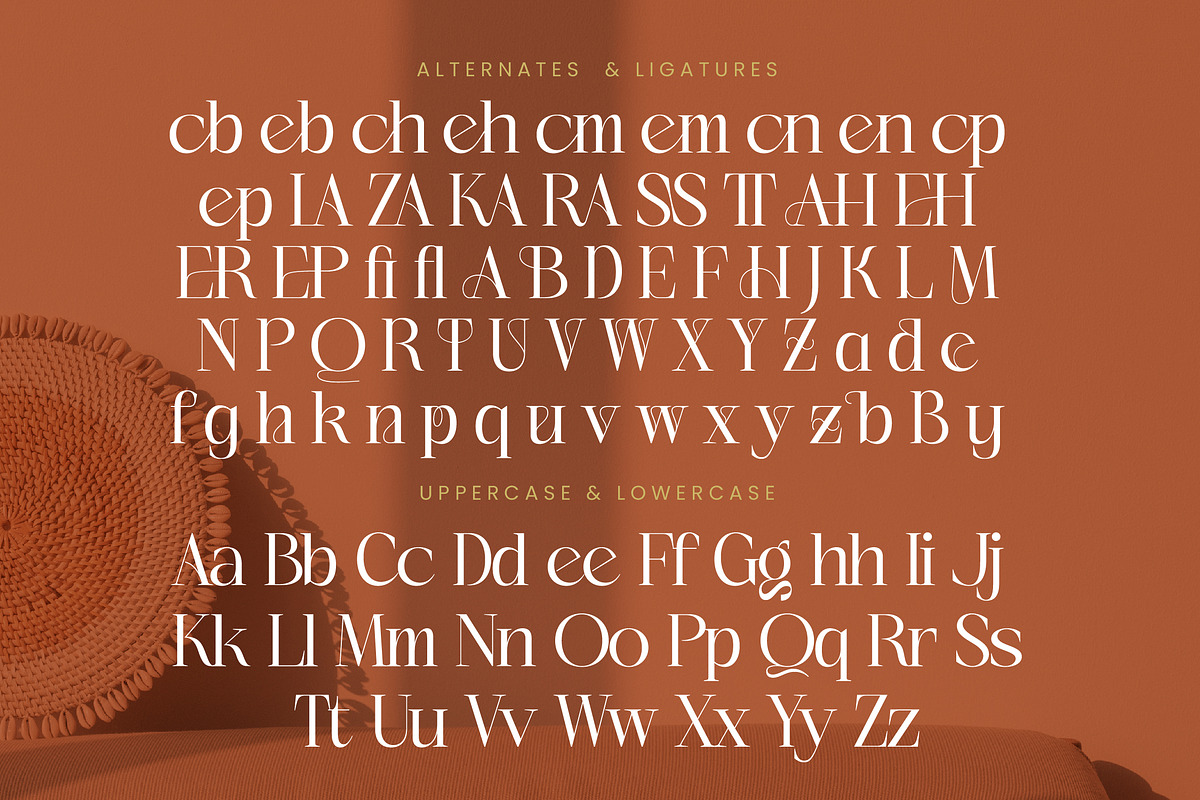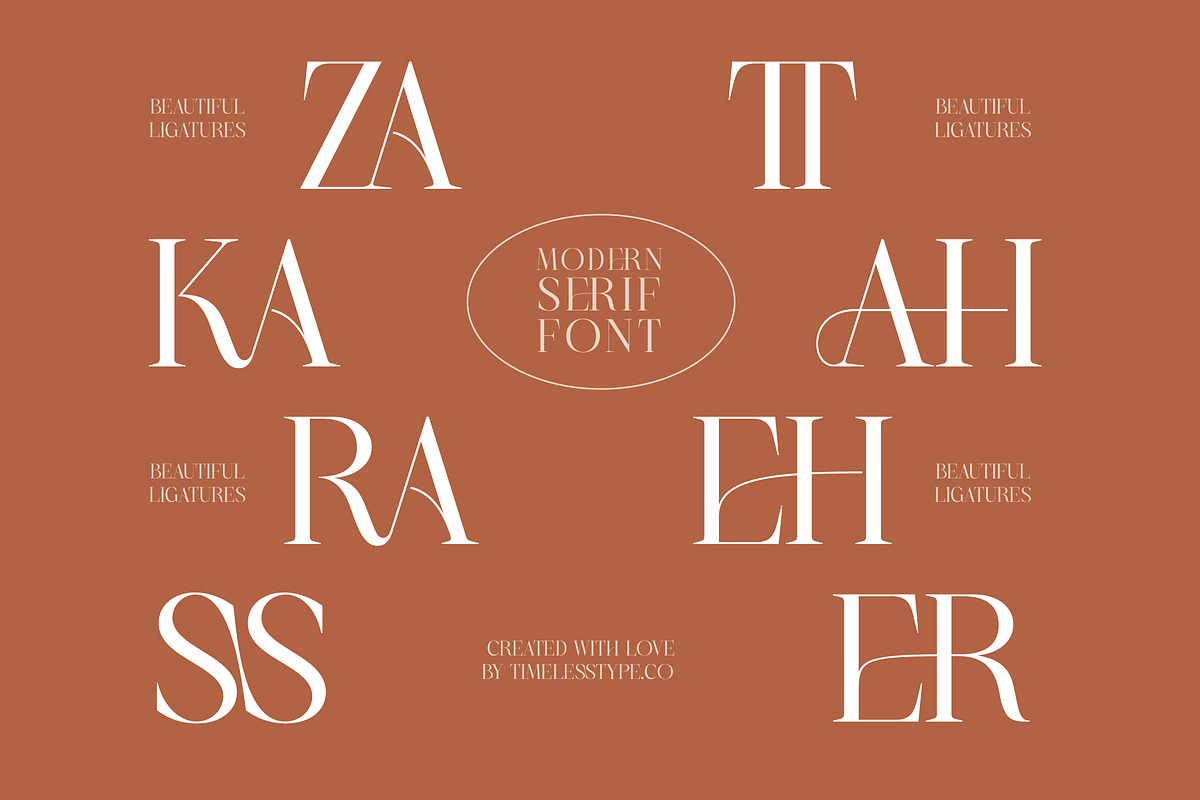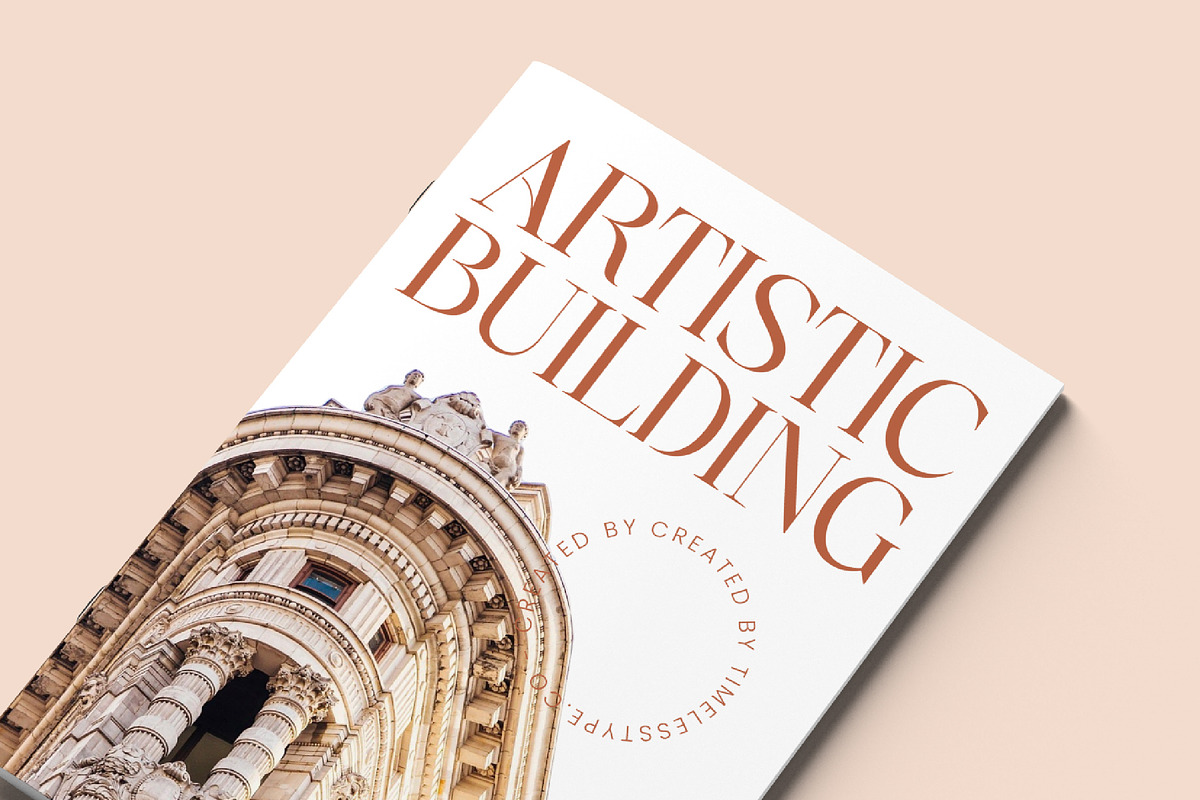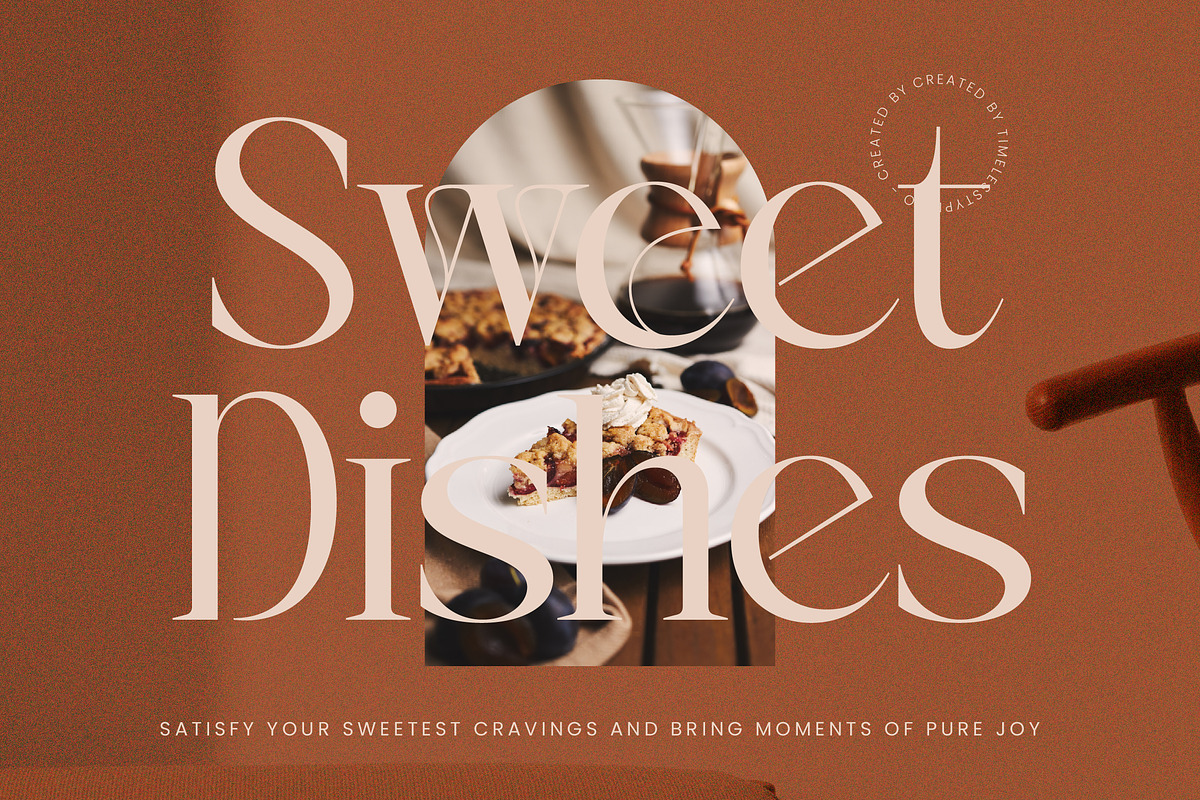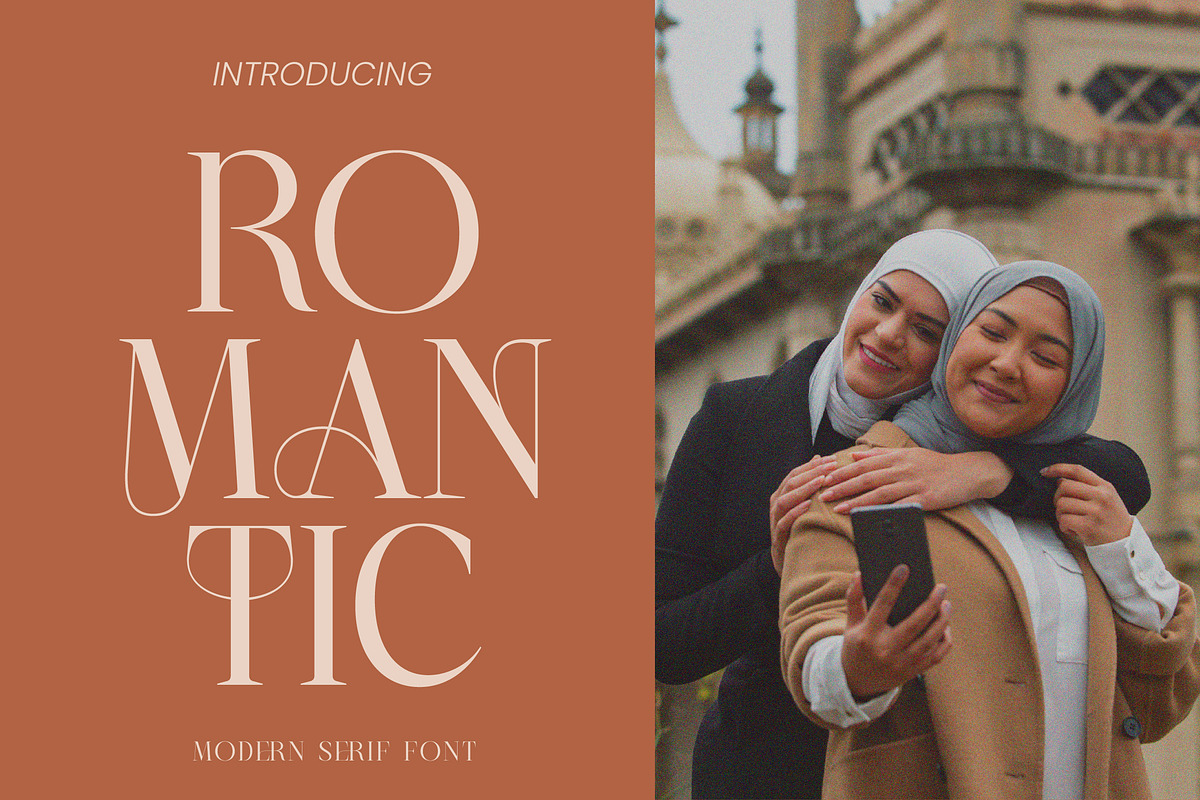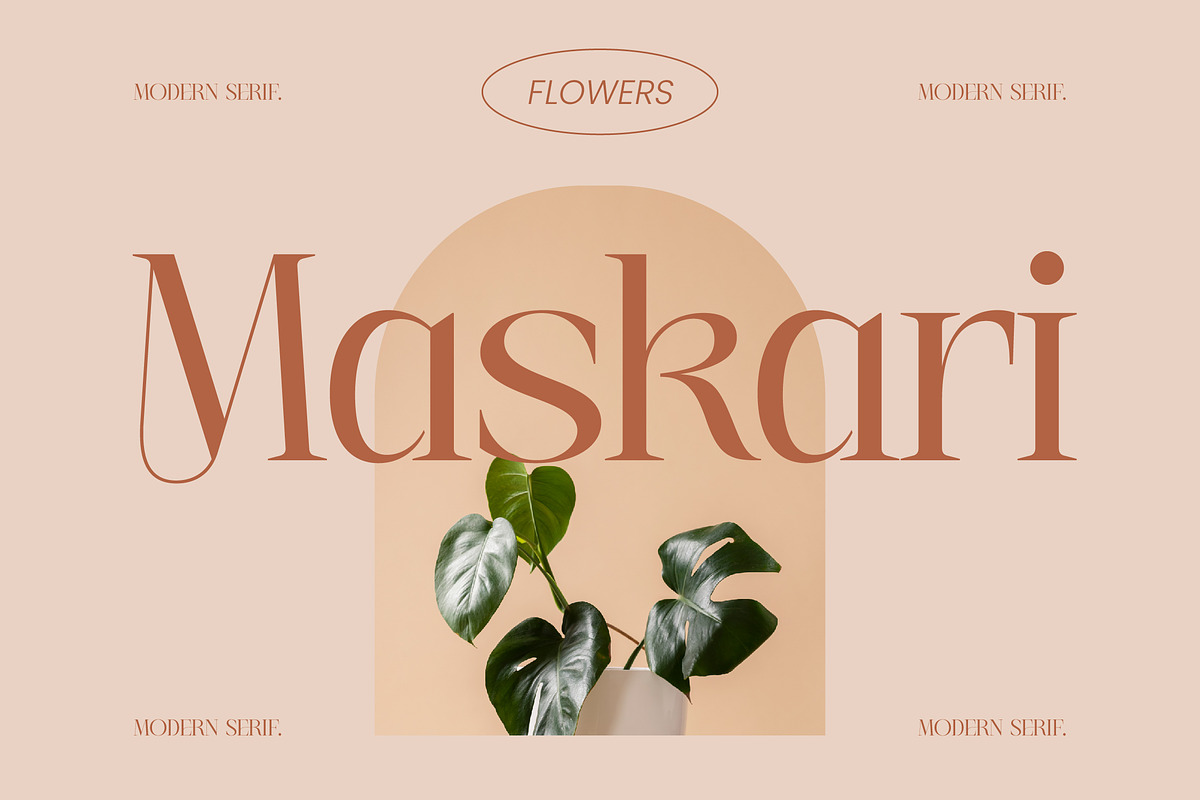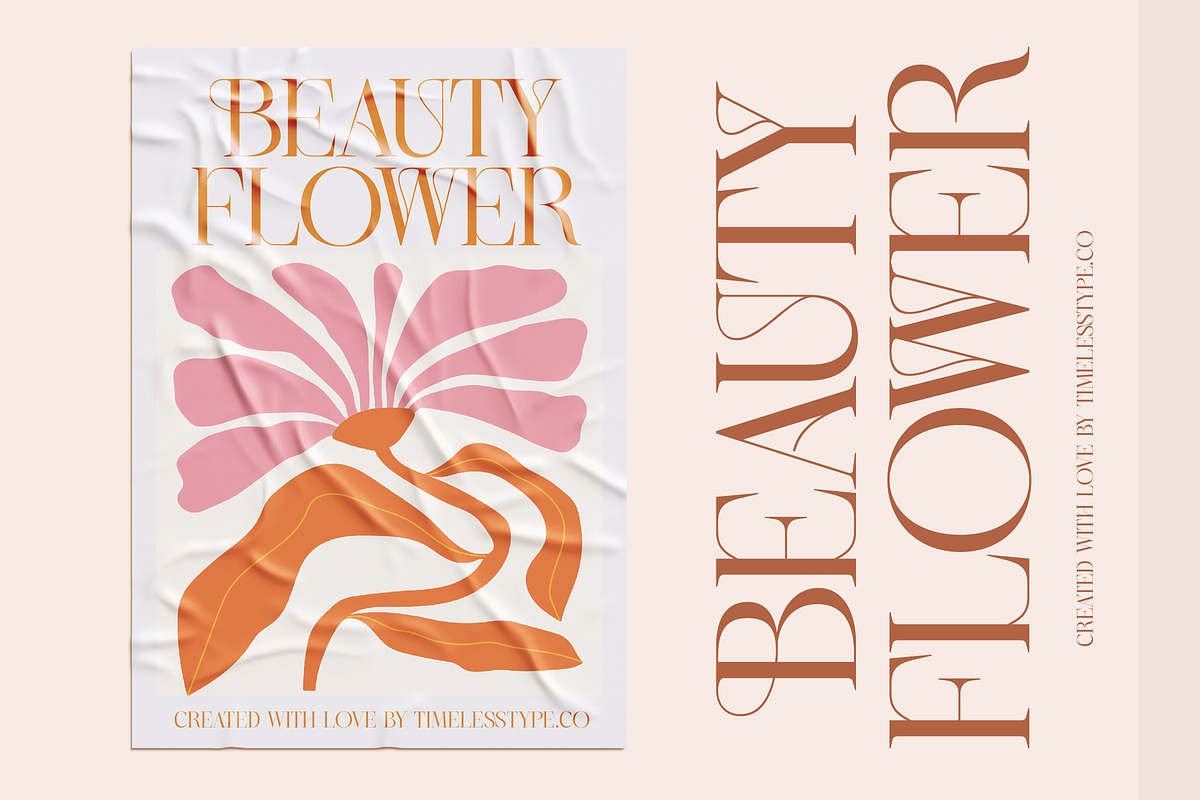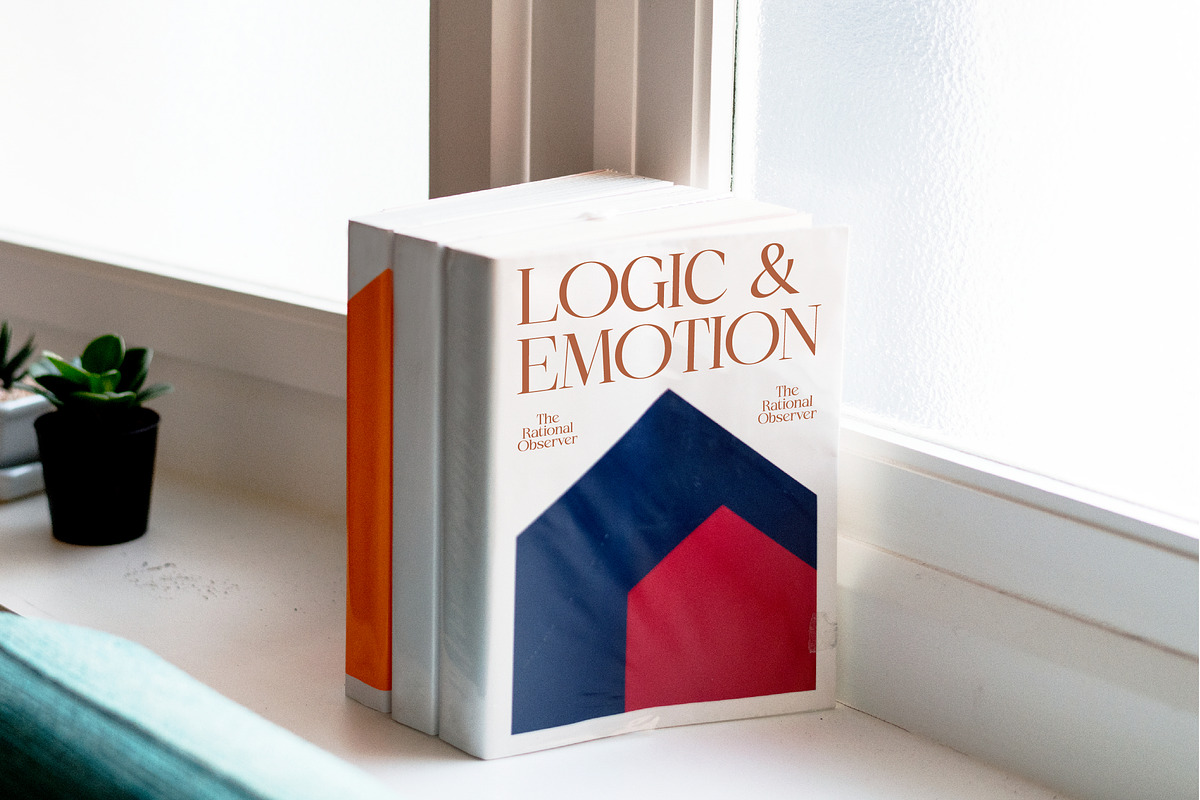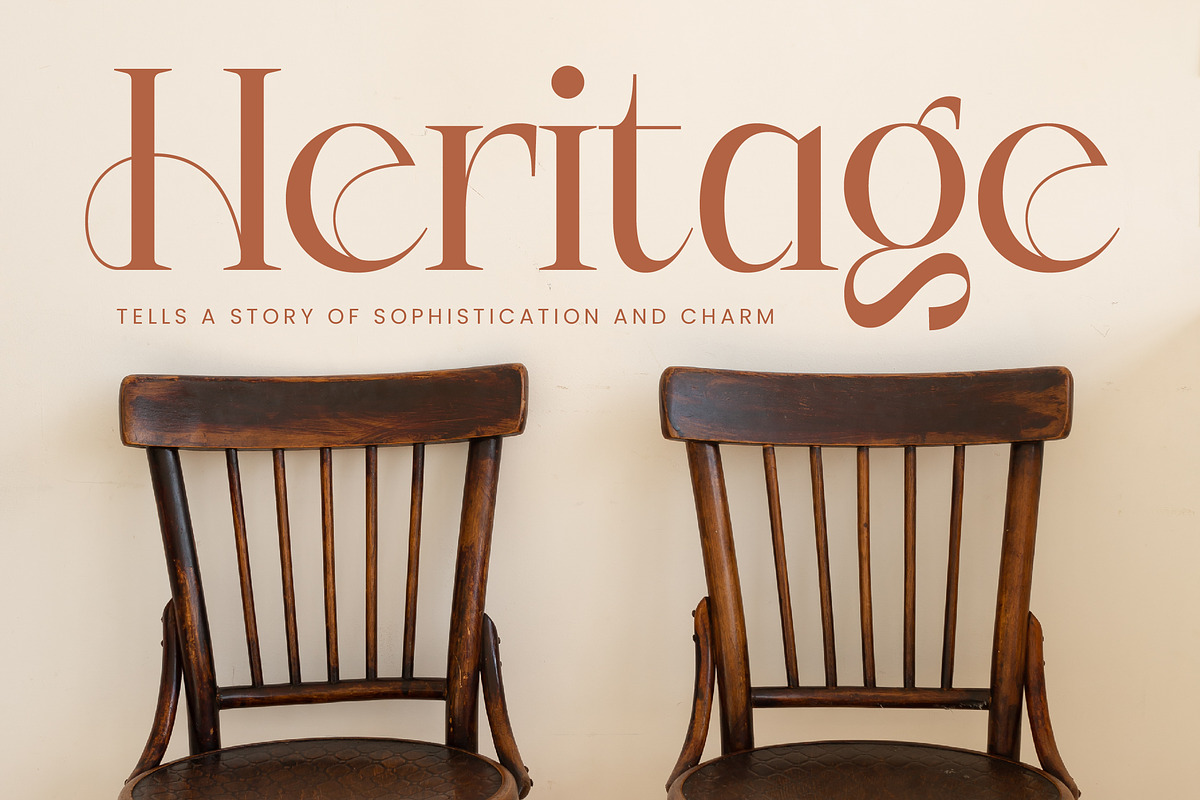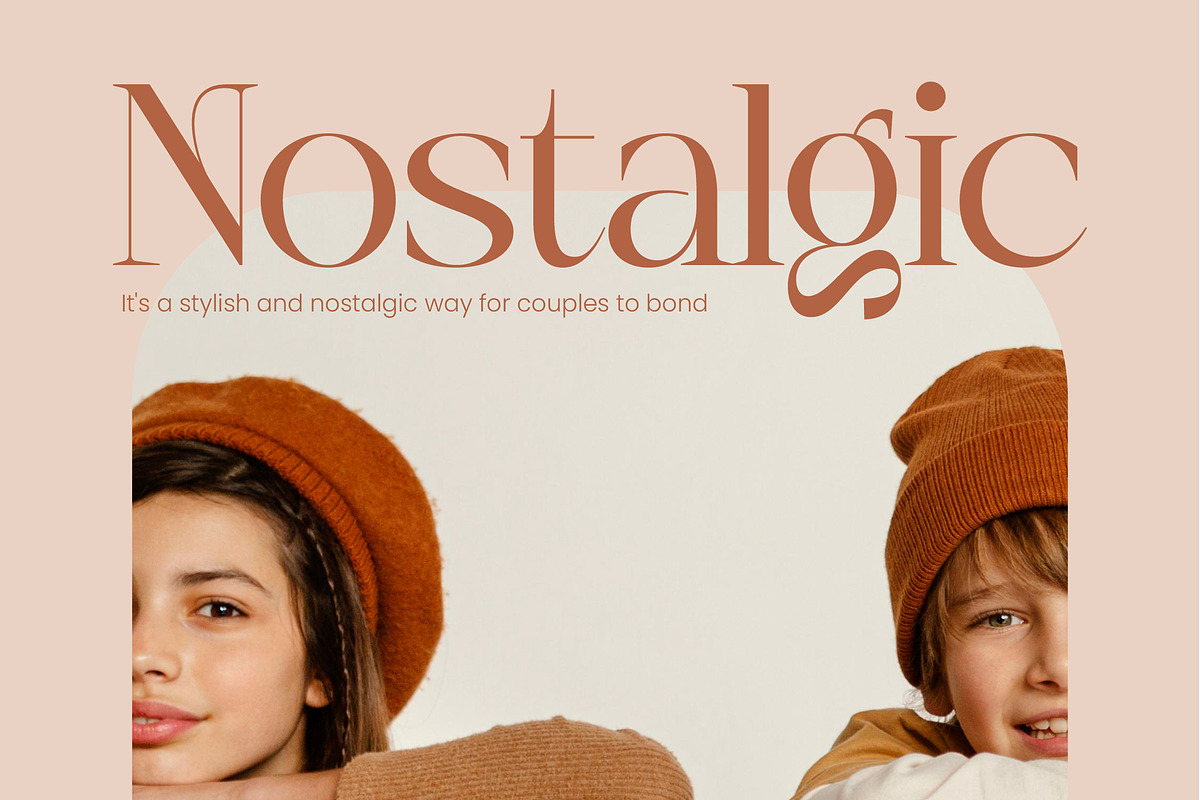
Heqra Modern Luxury Serif Font
Elevate your creative vision with the timeless elegance of Heqra, a font designed to leave a lasting impression of sophistication and grace. This typeface effortlessly captures the essence of refined beauty, making it an essential addition to any designer's toolkit for high-end projects.
Drawing inspiration from the intersection of classic architecture and high-end Mediterranean fashion, Heqra evokes a warm, sun-drenched atmosphere of luxury and artisan craftsmanship. Its graceful curves and sharp edges mirror the balance found in natural forms and bespoke sculptural design.
With its stunning modern serif display and luxury typography traits, this font is engineered for maximum branding impact across various media. The high-contrast serif details and unique character shapes provide a distinct editorial font aesthetic that commands attention on every page while maintaining legibility.
Perfectly aligned with the current modern serif trend, Heqra satisfies the growing demand for editorial display fonts that break away from traditional structures. It offers character-driven typography that helps brands stand out in a saturated digital landscape with unparalleled poise and confidence.
This versatile typeface is the ideal choice for high-end logo design and comprehensive corporate branding projects that require a touch of class. From sophisticated editorial layouts and luxury packaging to romantic wedding stationery and avant-garde fashion lookbooks, it adapts beautifully to premium contexts.
Unlock endless creative possibilities with over 24 unique ligatures and 40 stylistic alternates that allow for custom-tailored designs and unique wordmarks. The font also includes elegant swashes and full multilingual support with extensive international characters for a truly global design reach.
- Ligature 24 Alternate 40